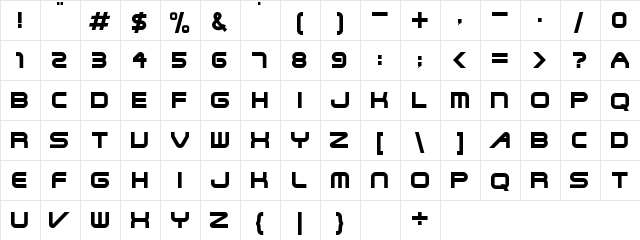
SteelWolf Medium
Design Context for SteelWolf Typeface
SteelWolf offers clean, dependable letterforms without strong stylistic allegiance, making it a practical choice for designers who need flexibility.